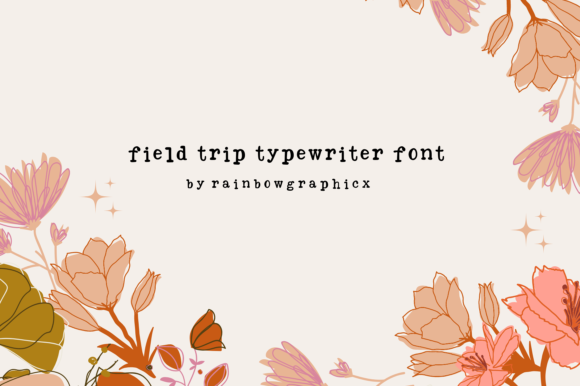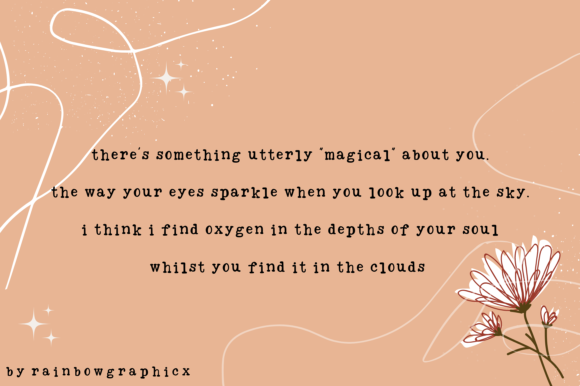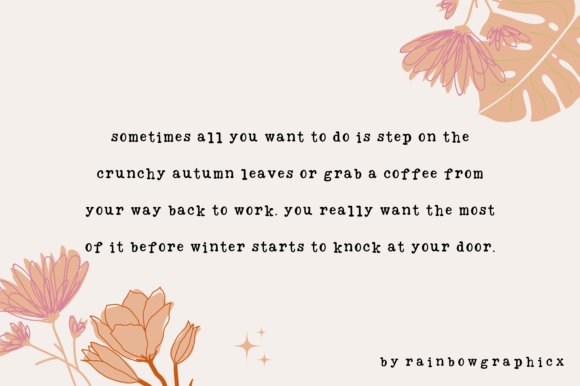
Field Trip Typewriter Font
About the Field Trip Typewriter Font
Meet Field Trip Typewriter Font, a stunning font that brings a touch of elegance and professionalism to any design. This Field Trip Typewriter font illustrates the beautiful nature of field trips this season! This typewriter font is different from others as it’s more funky and creative. You can use this beautiful font for digital letters, printable, templates, coloring books, and more.
Field Trip Typewriter’s playful, slightly quirky personality makes it ideal for headlines, short text blocks on posters, and branding applications needing a touch of vintage charm. It works well for projects targeting a younger demographic or those with a retro-inspired aesthetic. Avoid using it for body text or lengthy paragraphs; its unique character is best deployed sparingly.
This font pairs well with clean sans-serif fonts like Open Sans for a balanced contrast, or a more geometric sans-serif like Futura for a modern feel. For a touch of sophistication, consider pairing it with a delicate script font such as Great Vibes, but keep the script usage minimal to avoid overwhelming the typewriter’s strong presence.
The font’s overall mood is energetic and friendly, lending itself well to projects focusing on education, travel, or children’s products. Its slightly imperfect, hand-typed aesthetic adds a sense of authenticity and approachability.
Field Trip Typewriter Font Usage Examples
Field Trip Typewriter Font Example